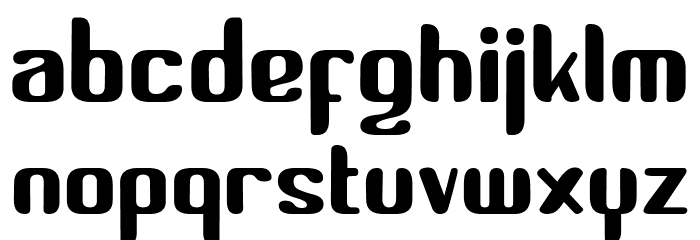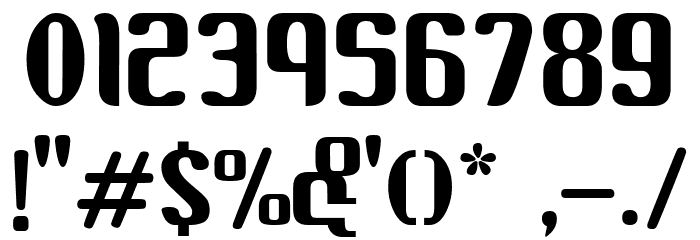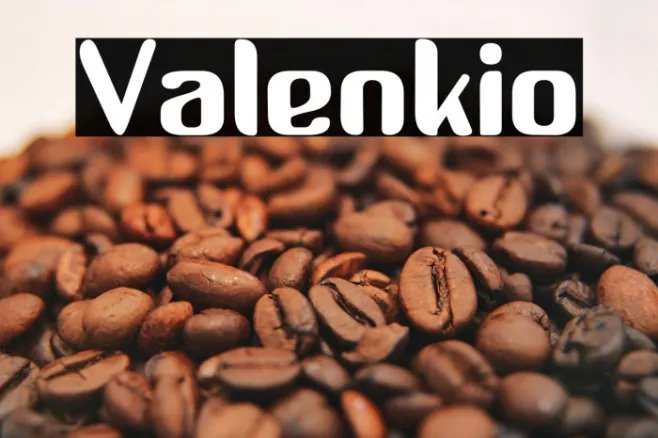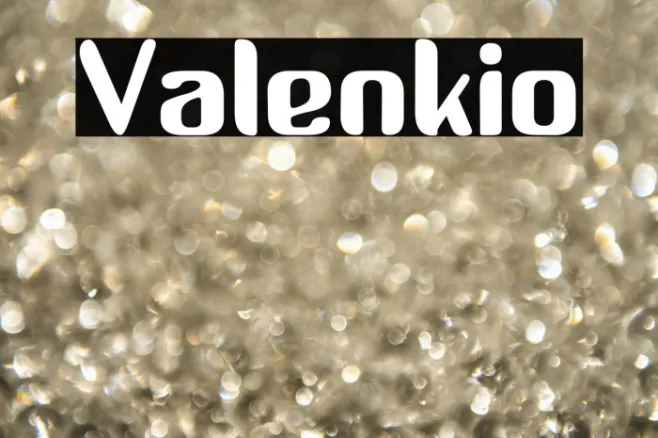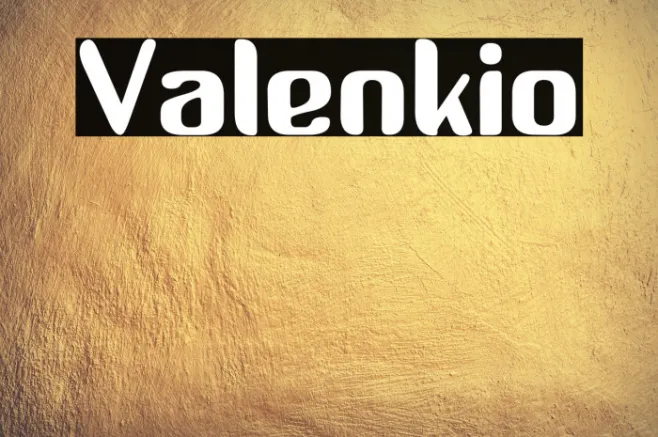
Valenkio Font
This font features a bold and rounded style with a modern and playful aesthetic. The characters are uniformly thick, giving them a strong presence on the page. The rounded edges soften the overall look, making it approachable and friendly. The uppercase and lowercase letters maintain a consistent height, contributing to a cohesive appearance. The numerals are distinct and easy to read, while the special characters complement the overall design. This font is versatile, suitable for various creative projects that require a bold and engaging typeface.
A bold, rounded font with a modern and playful style.
- Proposed Projects: Ideal for branding, posters, packaging, and children's books.